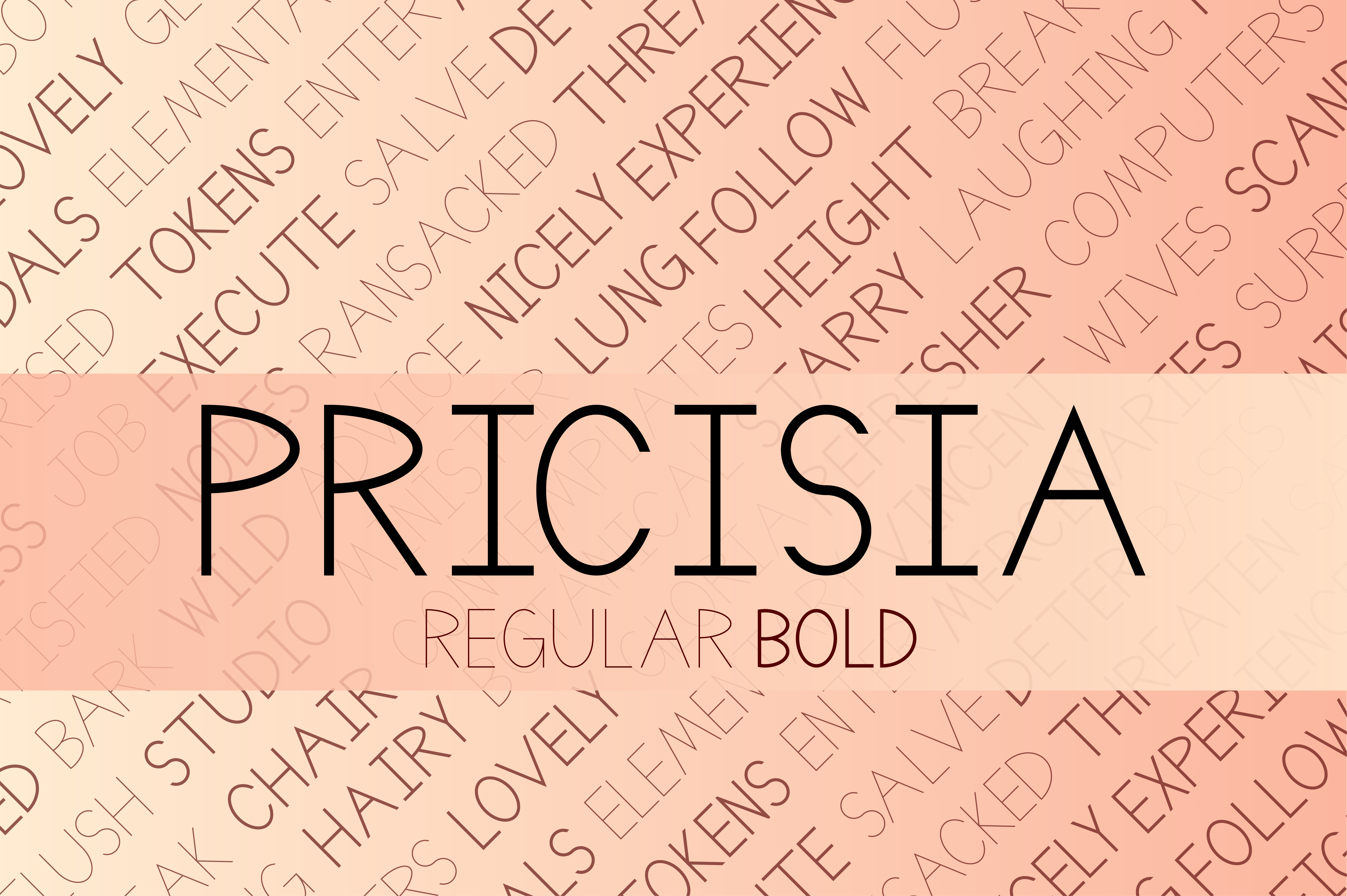
Pricisia Typeface
Pricisia is a monoline, sans-serif font with two weights that creatively breaks a few rules. This font is great for greeting cards, invitations, or youth-targeted branding and marketing collateral. Works great as body copy or headlines!
- 2 Pricisia fonts: Regular and Bold
- Extended Punctuation
Ligatures coming!